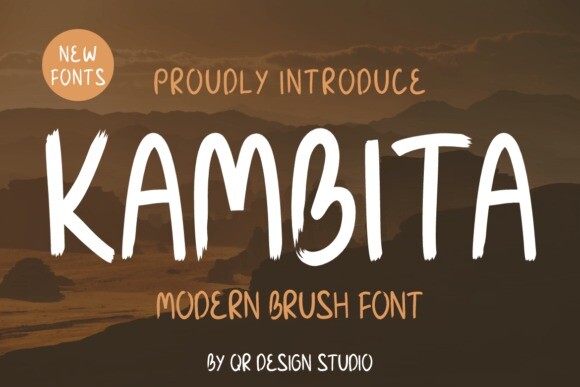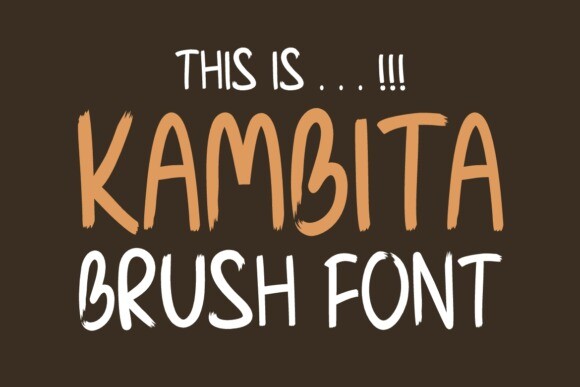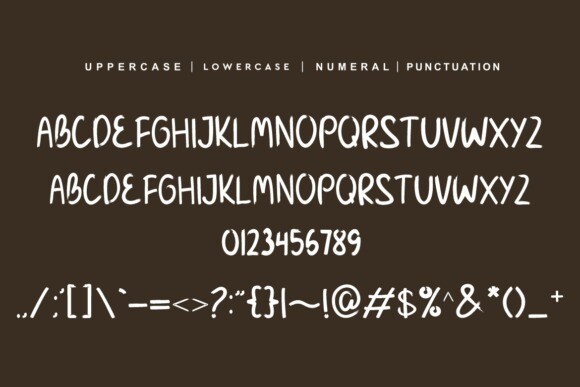
Kambita Font
Kambita Font is a bold and authentic handwritten font.
The font is suitable for any branding project like banners, logos, sports, web design, project packaging and is outstanding in a wide range of designs.